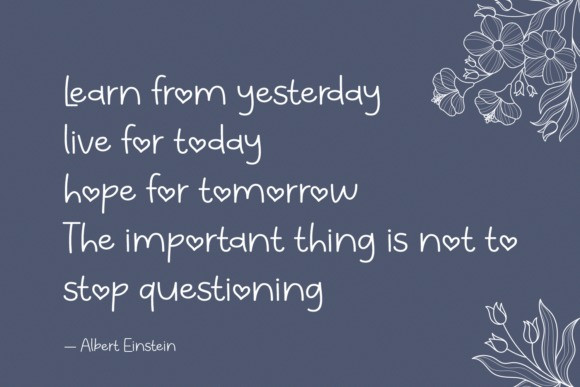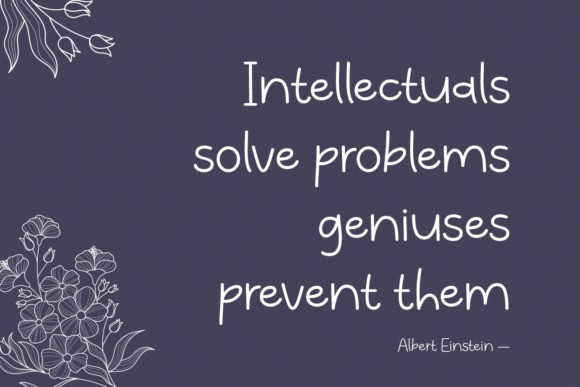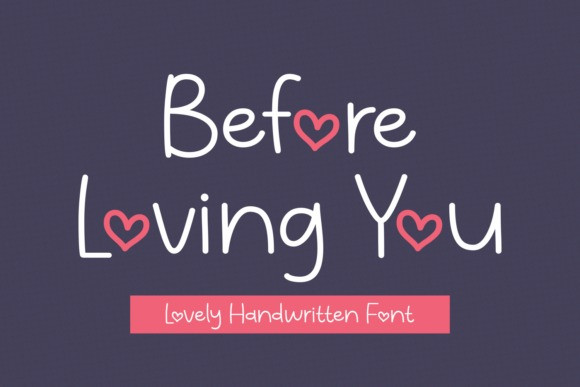
Before Loving You Handwriting Font
Before Loving You Handwriting Font is a sweet, delicate and romantic script font. It can easily be matched to an incredibly large set of projects, so add it to your creative ideas and notice how it makes them stand out!